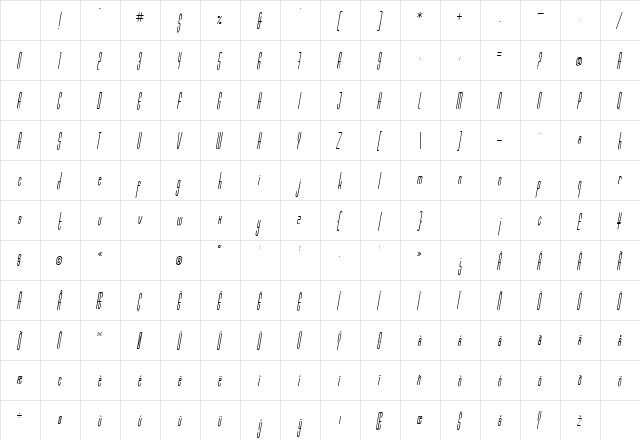
Marbellya Cond is a composed and adaptable typeface that performs quietly and consistently across a wide range of design contexts. The slanted form adds forward momentum and visual energy. Its narrow stance lets it pack a punch even in space-constrained designs.
Pro Tip: Use Marbellya Cond for emphasis, pull quotes, and subheadings where its slanted energy can add rhythm to the layout.